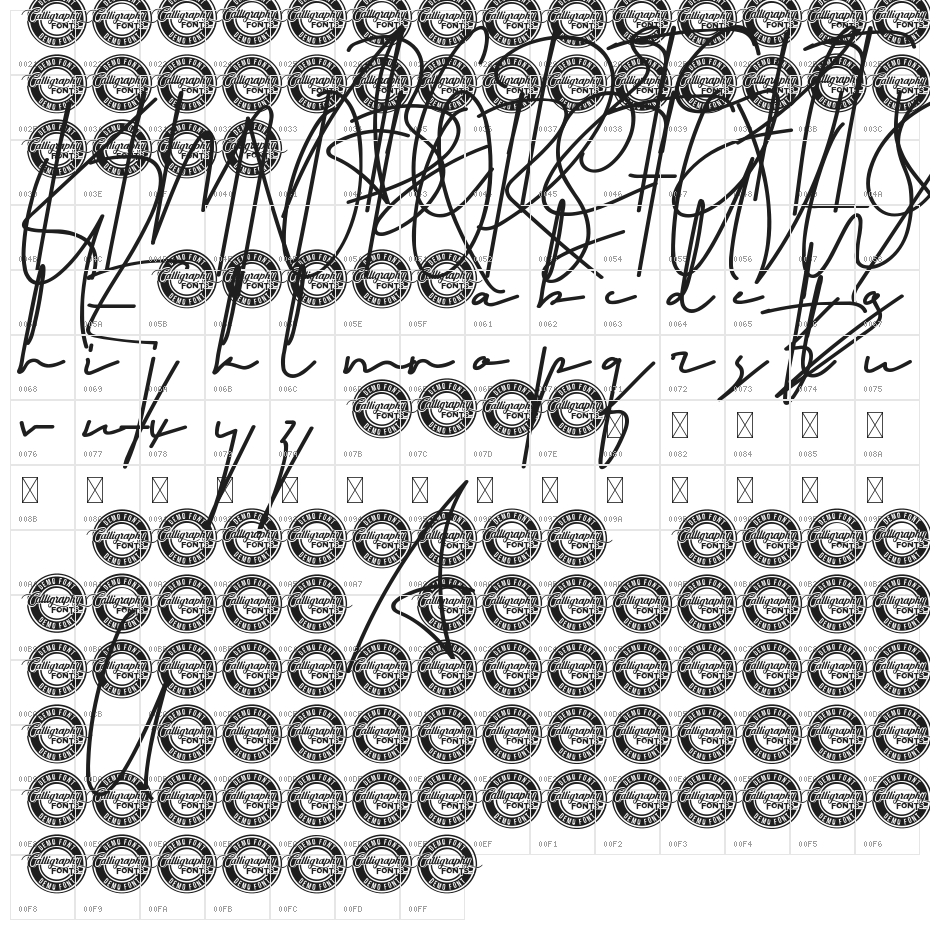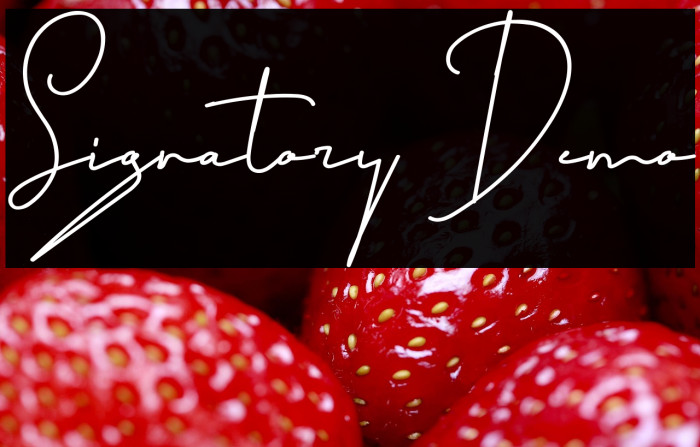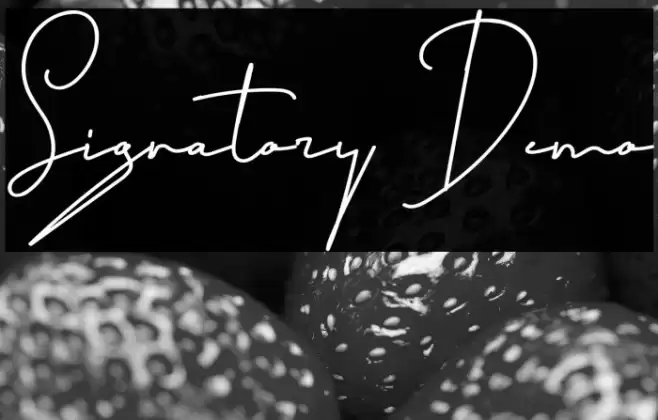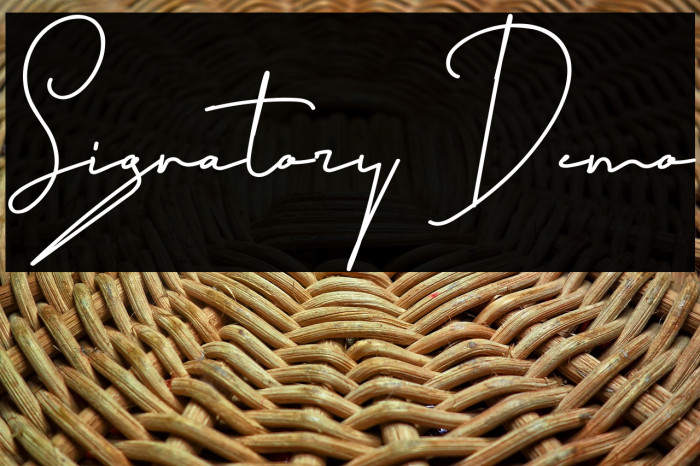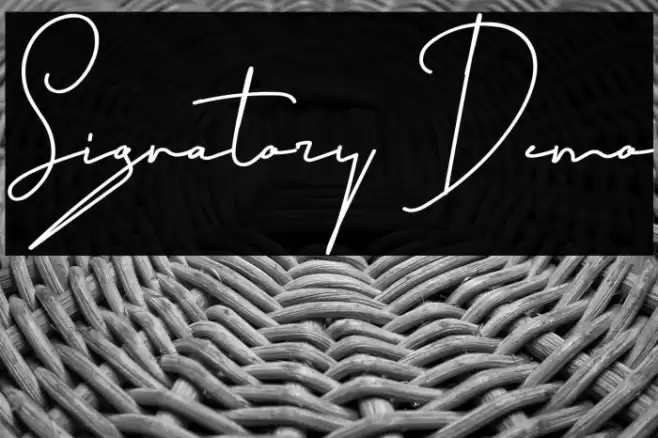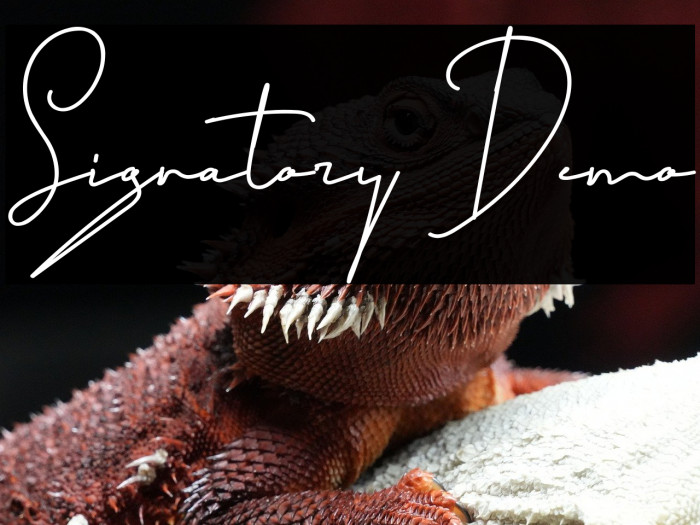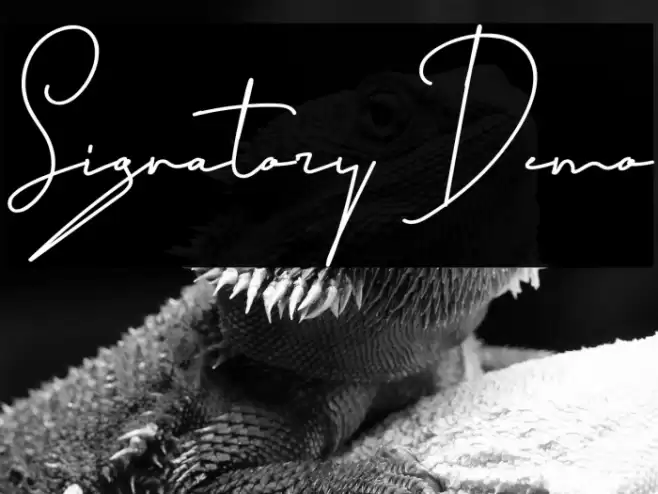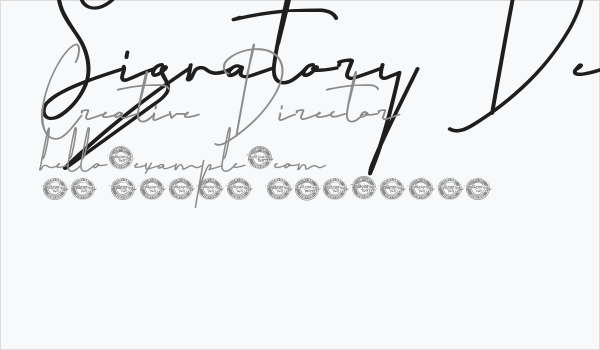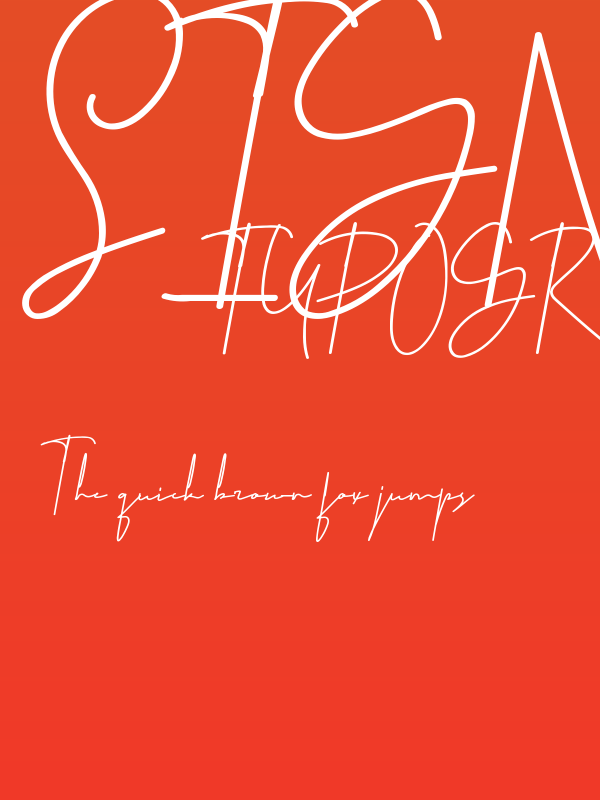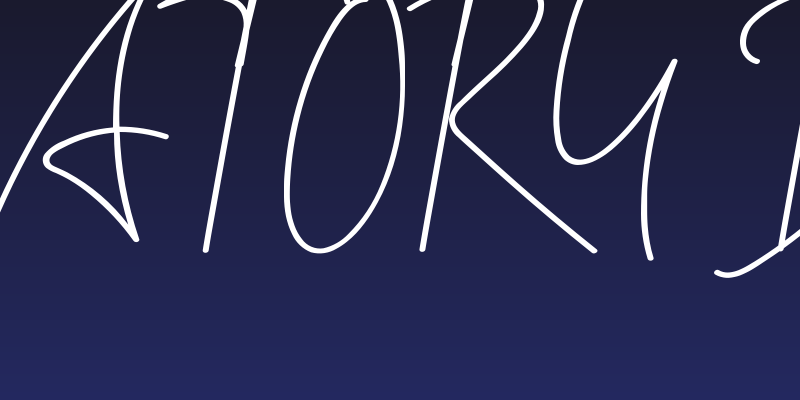
Signatory Demo Font
Signatory Demo Description
This font exhibits a fluid, cursive style with an elegant and sophisticated appearance. The uppercase letters are tall and slender, with a slight slant that adds a dynamic feel. The lowercase letters are more connected, creating a seamless flow that mimics natural handwriting. The strokes are thin and consistent, giving the font a delicate and refined look. The overall design is reminiscent of a personal signature, making it ideal for projects that require a touch of personalization and elegance. The special characters maintain the same stylistic approach, ensuring uniformity across all glyphs.